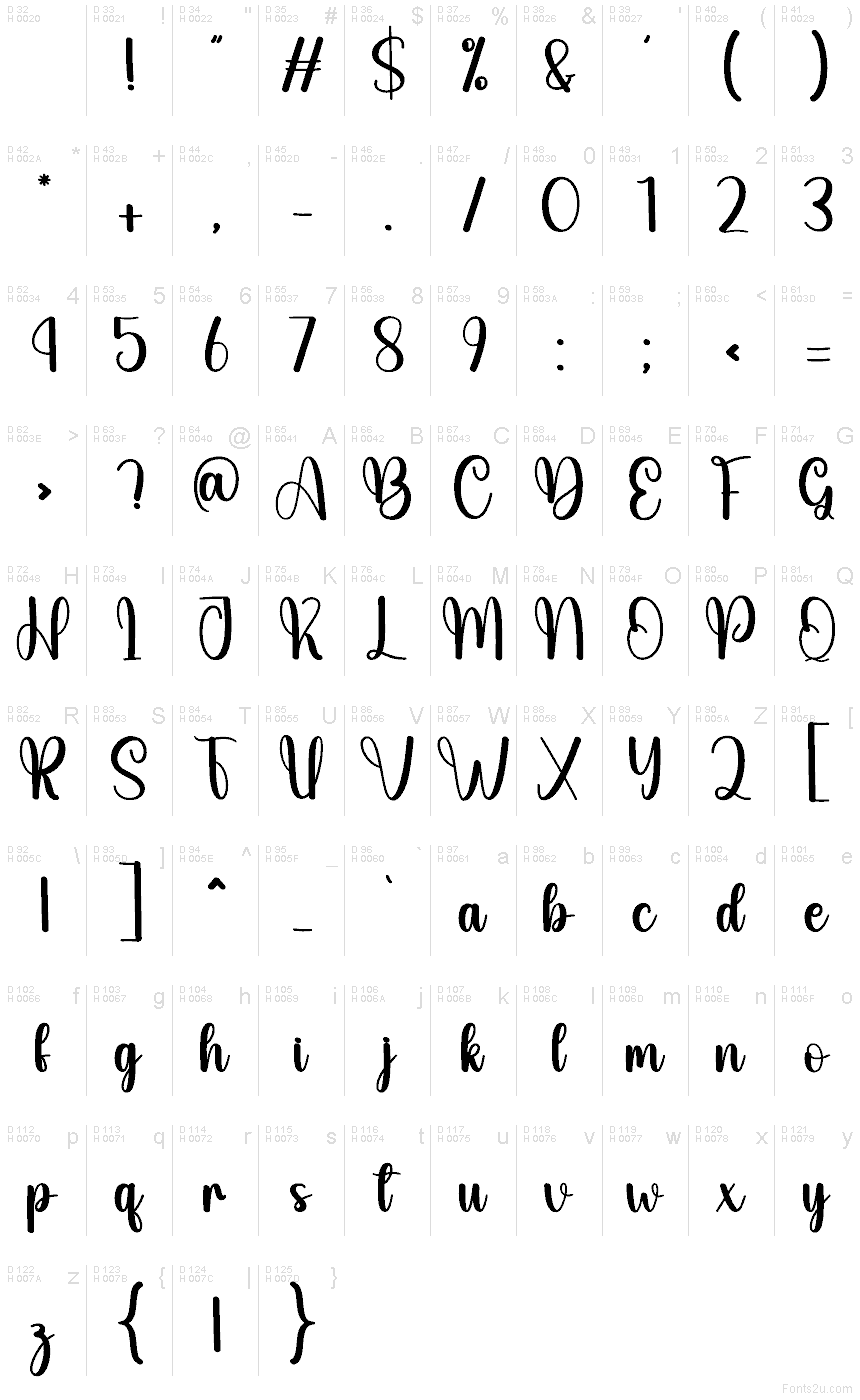
Abound
Abound font by Scratchones is a free handwritten font with flowing lines that create a harmonious typographic symphony. This elegant contemporary script has an expressive appearance thanks to the fine combination of connected letters, curves, and lighter strokes. It will abide by your rules but also break them in the most beautiful way possible.
Abound is a versatile typeface that has numerous applications beneficial for both individuals and companies. Typographic logos, branding projects, product packaging designs, wrapping papers, online platforms such as social media and websites, flyers, posters or cards can all feature Abound at its core.